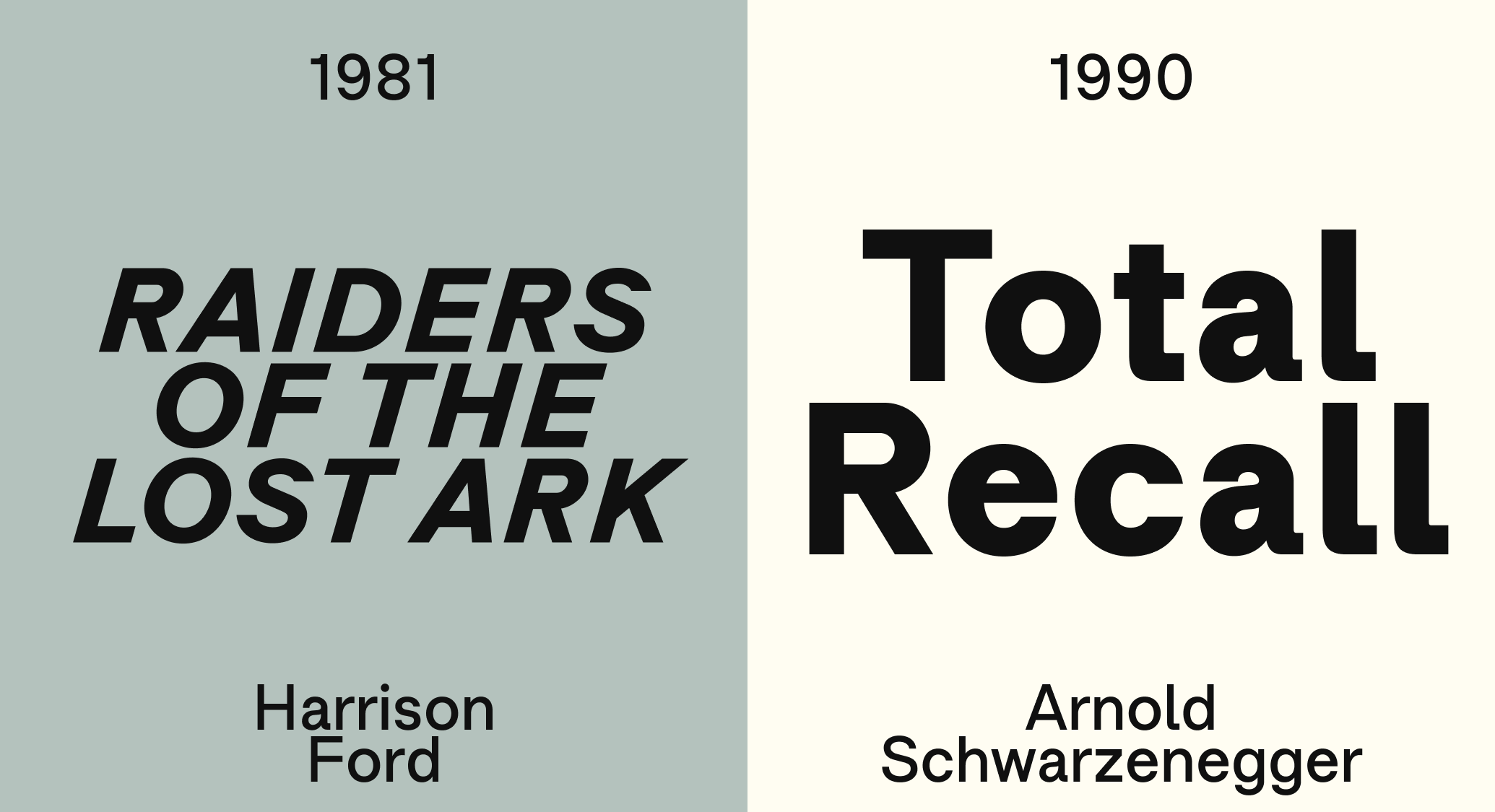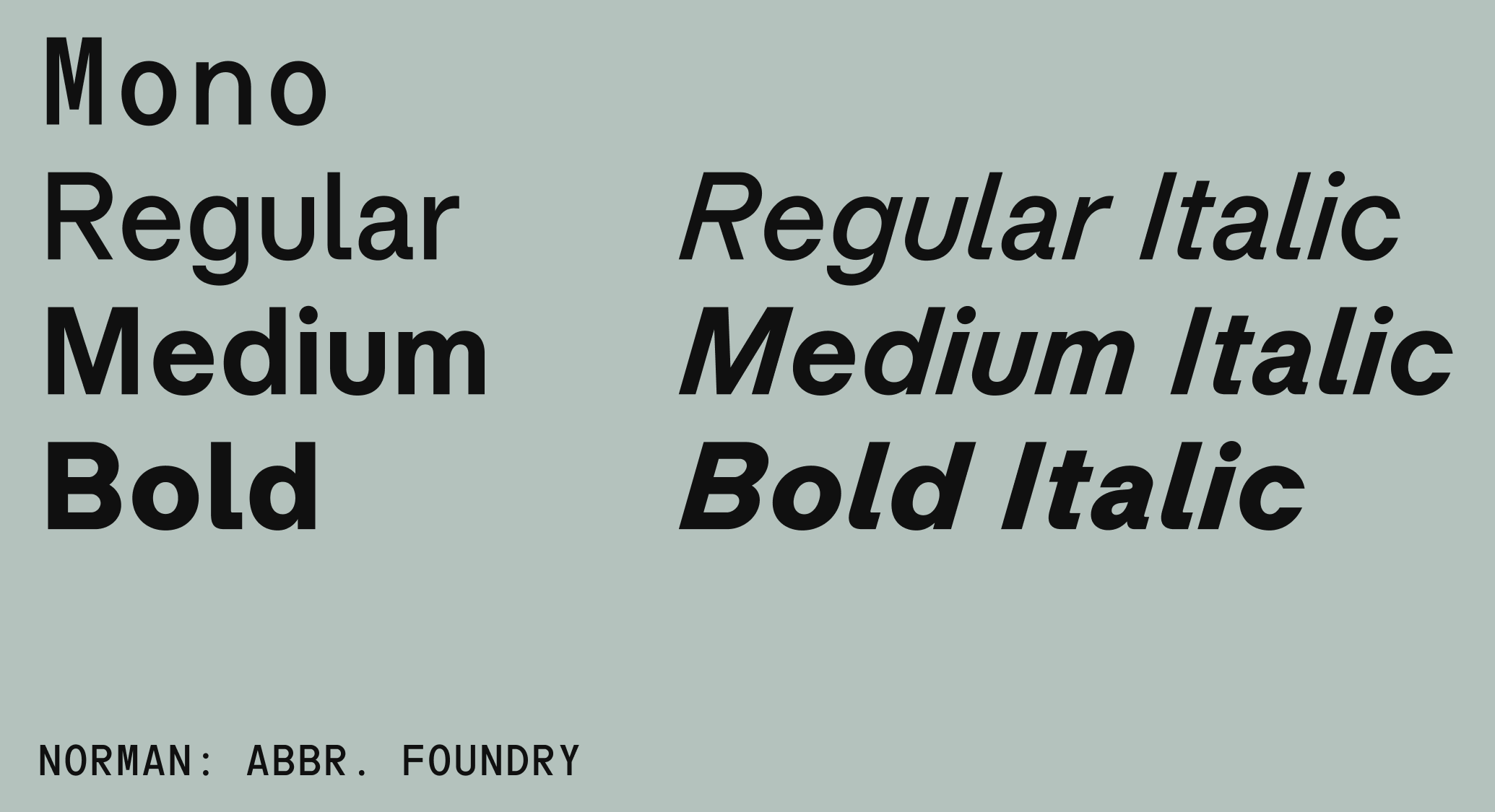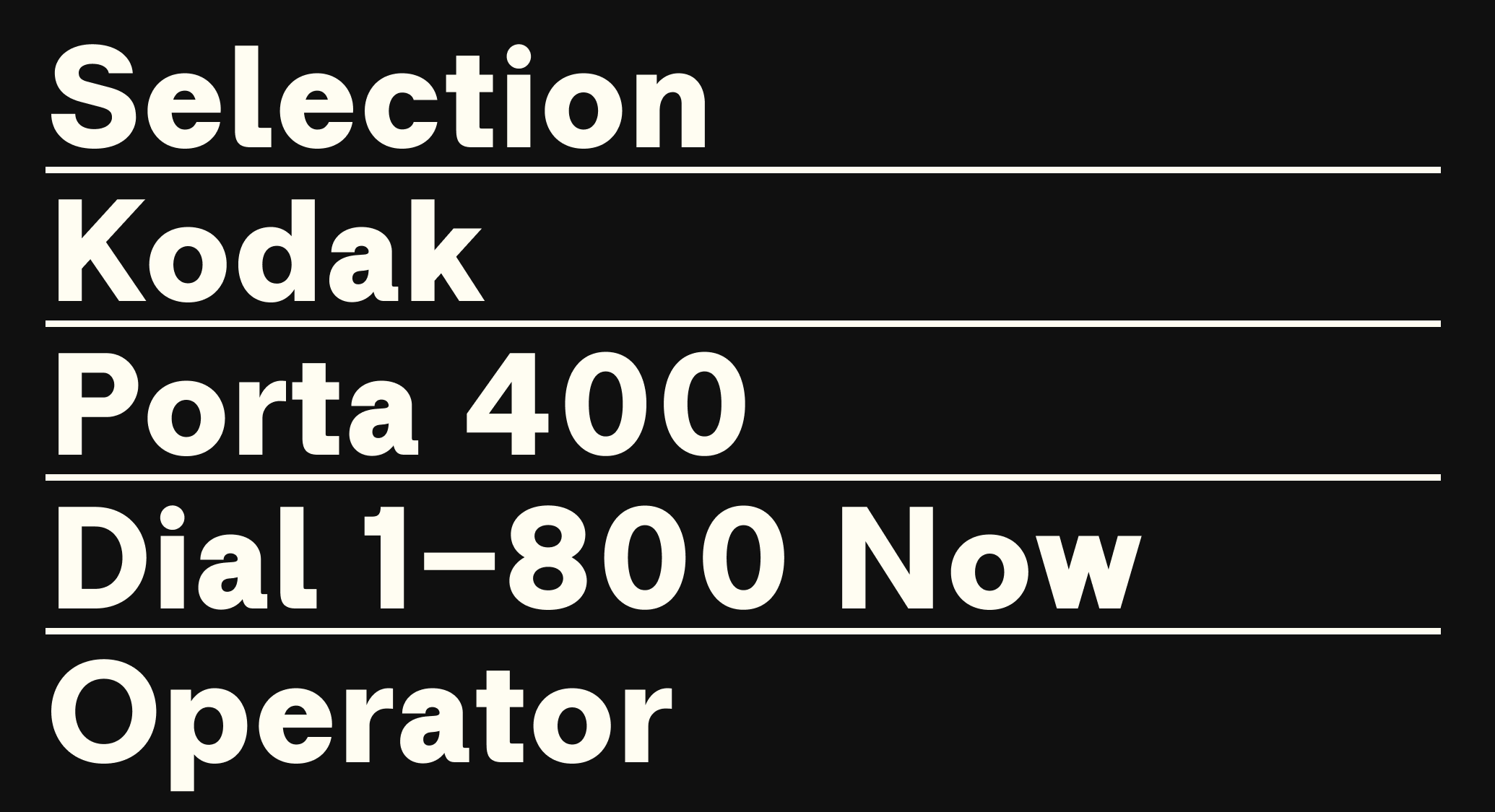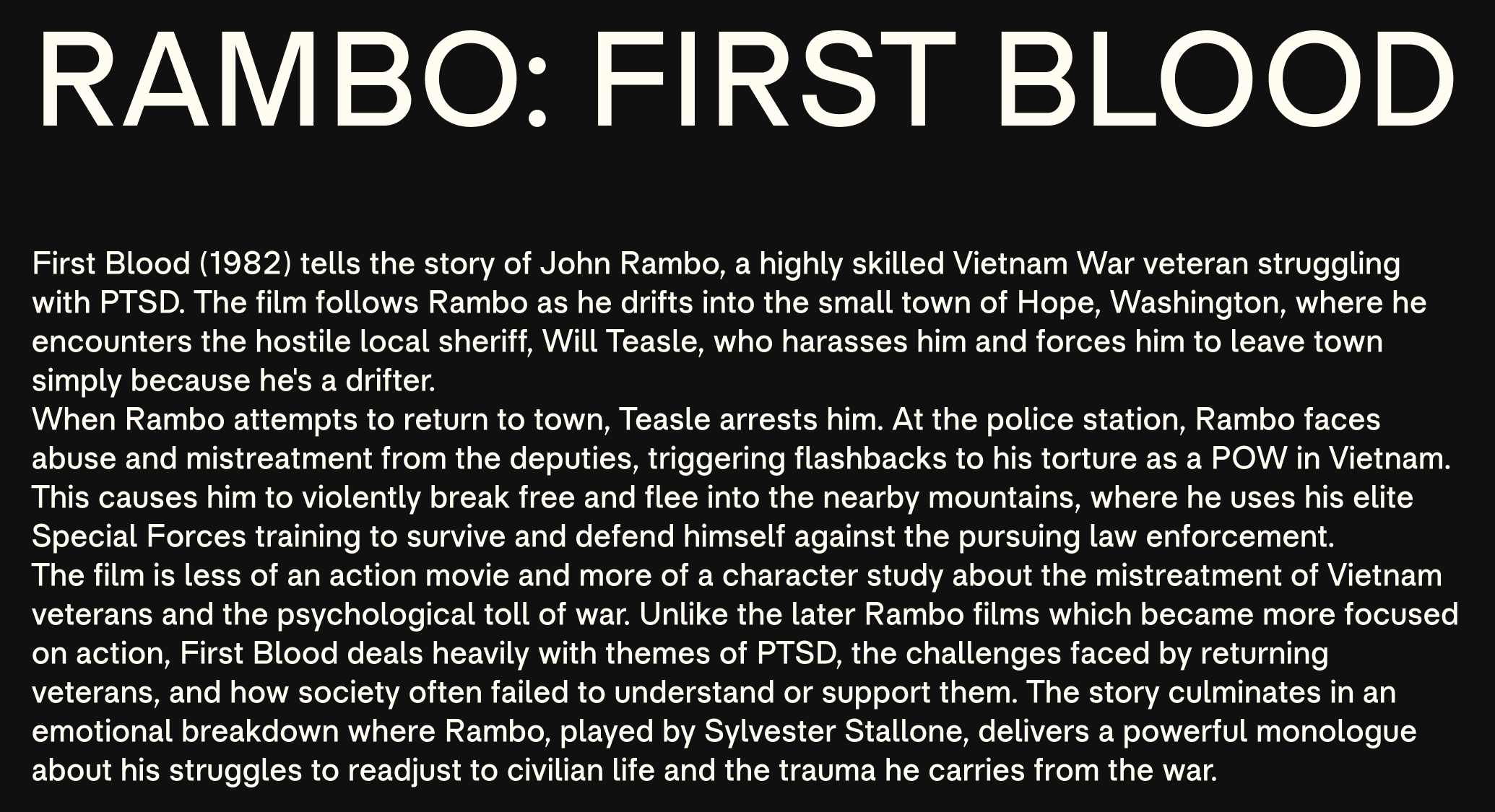
AF Norman
Mono
Regular
Regular Italic
Medium
Medium Italic
Bold
Bold Italic
AF Norman is a reliable narrator. Round in all the right places, rigid everywhere else, it strikes a rare balance between expression and order. With this precise curvature and monolinear construction, Norman makes sense on a tech company keynote, or a bottle of artisanal olive oil. This sans-serif’s seductive precision pleases the eye, and keeps your audience hooked.